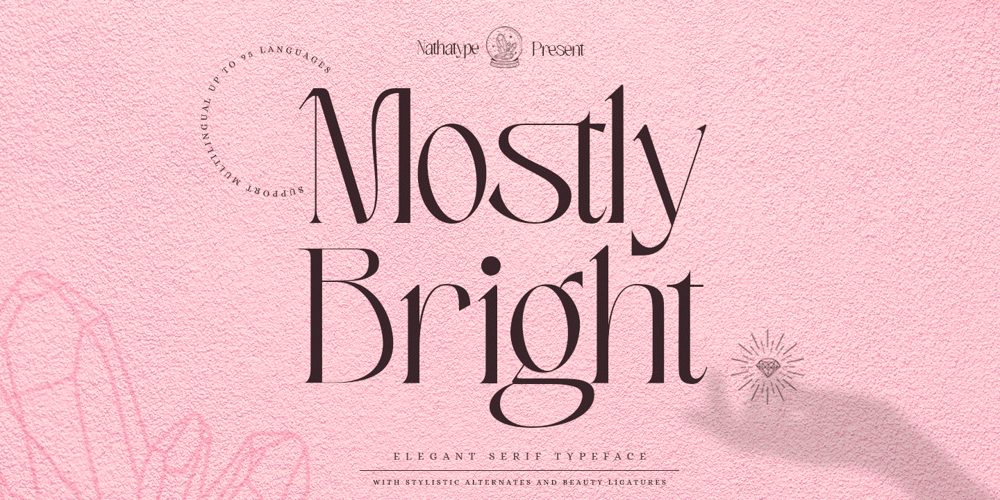
Mostly Bright Font Family was designed by Donis Miftahudin and published by Nathatype. Mostly Bright contains 1 styles and family package options. Be the center of attention through your sophisticated design with the awesome Mostly Bright. It is a serif font. While it’s easy, there are also a little bit curvy strokes for generates modern and elegant vibes. Slay your design with Mostly Bright’s best features so you’ll look your best on what ever your design is, all the time.Features: Alternates Ligatures Swash Lower and uppercases Numerals and Punctuations It is perfectly used for many design projects, such as poster, logo, book cover, branding, heading, printed product, merchandise, quotes, social media campaign, etc. Get more inspiration about how to use it by seeing the font preview.Thank you for purchasing our fonts. Please don’t hesitate to contact us, if you have any further question or issues. We’re happy to help. Happy Designing.